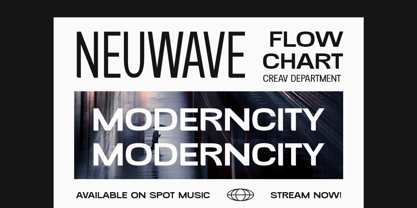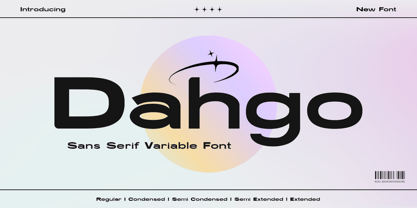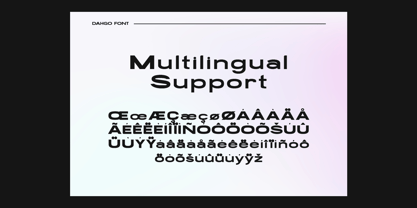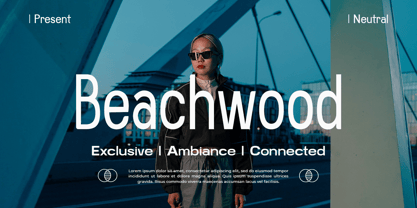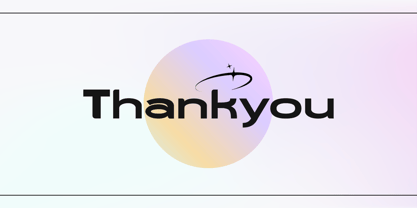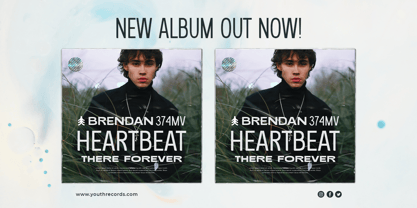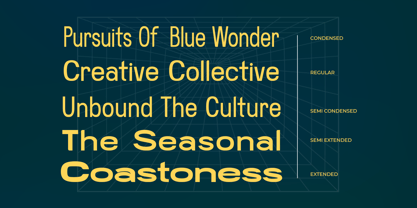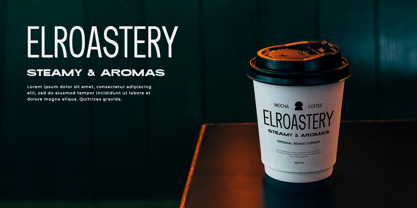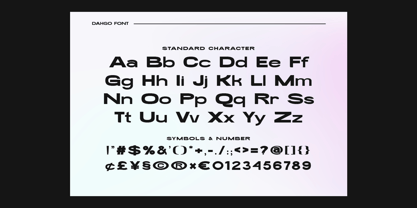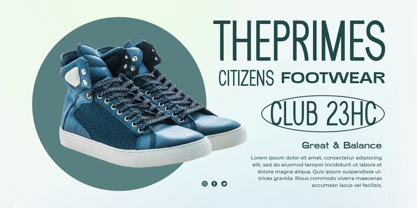
Dahgo
von Typefactory
Die Schriftfamilie Dahgo wurde von Hilmius Akbar entworfen und von Typefactory veröffentlicht. Dahgo enthält 5 Stile und Familienpaketoptionen.
Introducing "Dahgo" - a versatile sans-serif variable font that offers limitless possibilities for creative expression and design flexibility.
With its modern and streamlined letterforms, "Dahgo" combines functionality with style, making it suitable for a wide range of design projects. From sleek branding to clean editorial layouts, this font adapts effortlessly to any context, delivering clarity and impact in every iteration.
Embrace the versatility of "Dahgo" as it empowers you to explore a multitude of typographic variations with ease. Whether you're adjusting weight, width, or optical size, this variable font provides the perfect tool for customization, ensuring that your designs always stand out with precision and consistency.
Step into the future of typography with "Dahgo" and unleash your creativity with its dynamic and adaptable style.